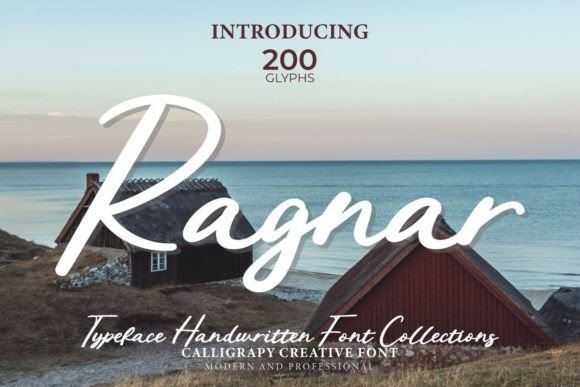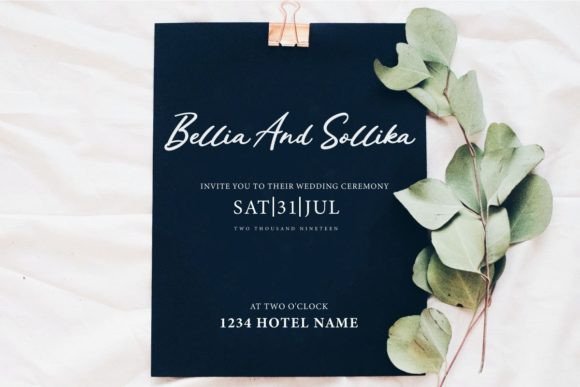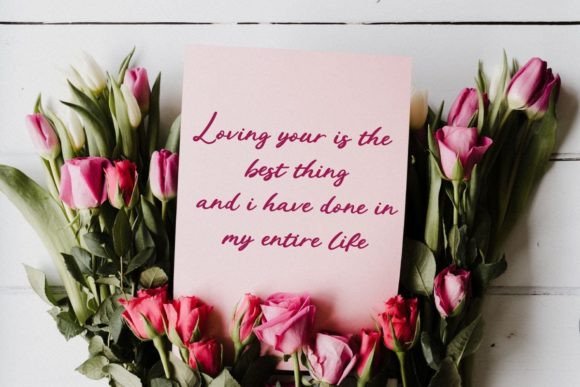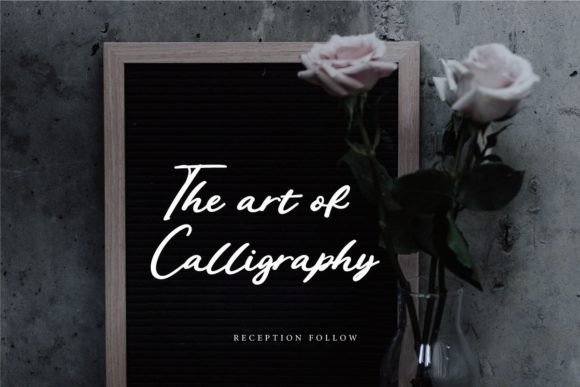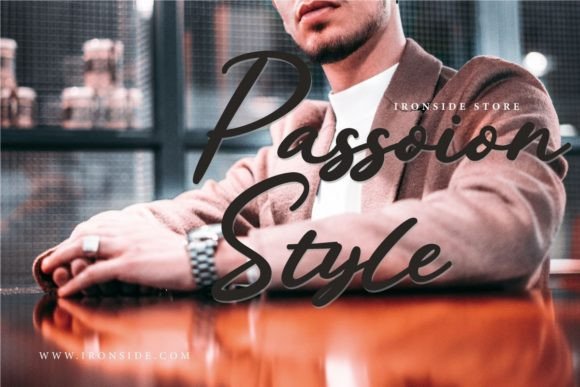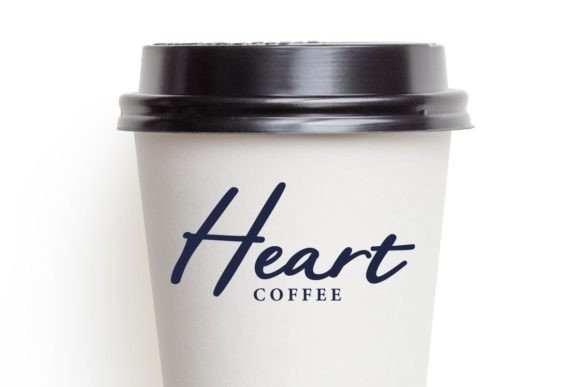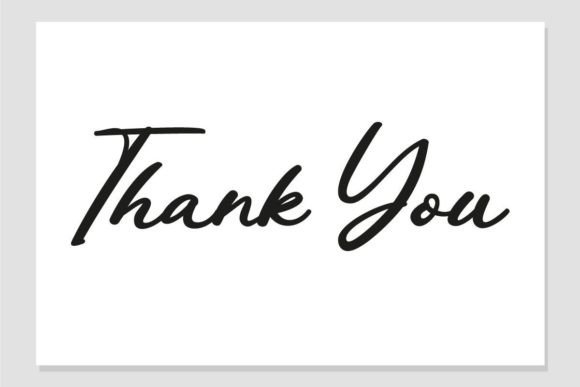
Ragnar Font
About Ragnar Font
“Ragnar” stands as a testament to beauty in the realm of handwritten fonts. Its exquisite design makes it the perfect choice for a diverse array of projects, infusing elegance and charm into every piece of typography it graces. The font’s versatility knows no bounds, making it an ideal option for a wide range of creative endeavors.
When it comes to wall displays, “Ragnar” transforms ordinary walls into art pieces. Its graceful strokes and artistic flair create visually stunning displays that capture attention and add a touch of sophistication to any space. Whether used in homes, offices, or retail environments, this font turns walls into captivating focal points, leaving a lasting impression on anyone who beholds it.
For wedding invitations, “Ragnar” adds a sense of romance and intimacy. Its beautiful handwritten style conveys the emotions of the occasion, setting the tone for a celebration of love. Each letter exudes elegance, making the invitations not just pieces of paper, but keepsakes that guests will treasure. The font’s timeless beauty enhances the overall aesthetic, making wedding invitations truly unforgettable.
In the realm of social media, “Ragnar” transforms posts into visual masterpieces. Whether used on Instagram, Facebook, or Pinterest, this font adds a touch of class to your messages. Its elegant appearance makes social media posts stand out, drawing the viewer’s eye and creating a memorable experience. Whether you’re sharing inspirational quotes, announcements, or promotional content, “Ragnar” ensures that your social media presence is both impressive and engaging.
When it comes to branding, “Ragnar” is a powerful tool. Its unique handwritten charm adds personality to logos, making them memorable and distinctive. The font’s artistic quality creates logos that are not just symbols but expressions of creativity and individuality. Whether your brand is playful or sophisticated, “Ragnar” adapts seamlessly, enhancing your brand identity with its beautiful typography.
Advertisements come alive with the inclusion of “Ragnar.” Its eye-catching design captures attention, making advertisements more impactful and effective. Whether you’re creating print ads or digital banners, this font ensures that your message is communicated with style and flair. The font’s ability to evoke emotion and captivate audiences makes it a valuable asset in the world of advertising.
Product packaging becomes a work of art with “Ragnar.” Its elegant script enhances the visual appeal of packages, creating a sense of luxury and desirability. The font’s beauty transforms product designs, labels, and watermarks, adding a touch of sophistication to every detail. Whether you’re selling handmade crafts or high-end products, “Ragnar” elevates your packaging, making your products irresistible to customers.
Invitations and stationery designed with “Ragnar” become tokens of elegance. From formal events to casual gatherings, this font adds a touch of refinement to invitations, making them a delight to receive. Whether used for weddings, parties, or corporate events, “Ragnar” ensures that invitations make a statement, reflecting the importance and exclusivity of the occasion.
In summary, “Ragnar” is more than just a font; it’s a design powerhouse that transforms projects into works of art. Its beauty and versatility make it an indispensable choice for wall displays, wedding invitations, social media posts, logos, advertisements, product packaging, product designs, labels, photography, watermarks, invitations, stationery, and any project that demands impressive typography. With “Ragnar,” your designs are not just seen; they are experienced, leaving a lasting impression on all who encounter them.